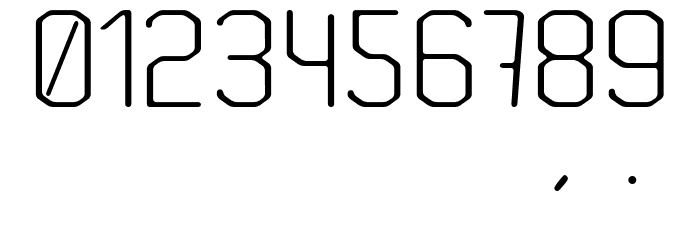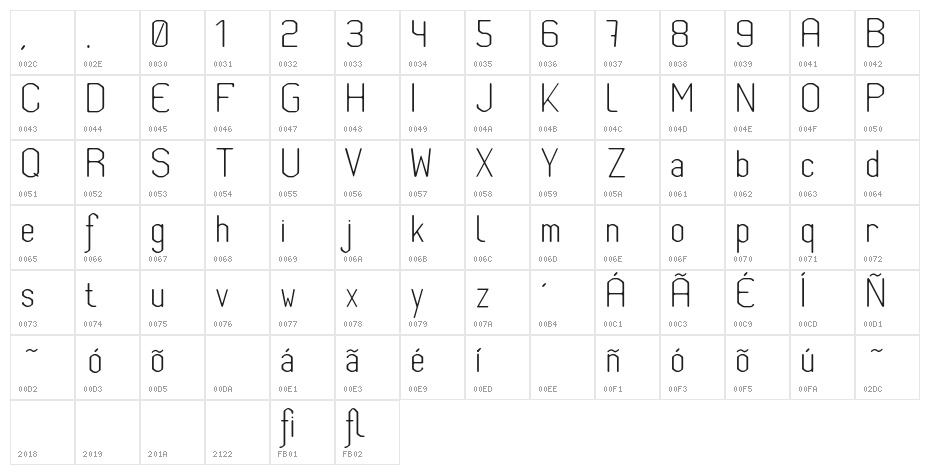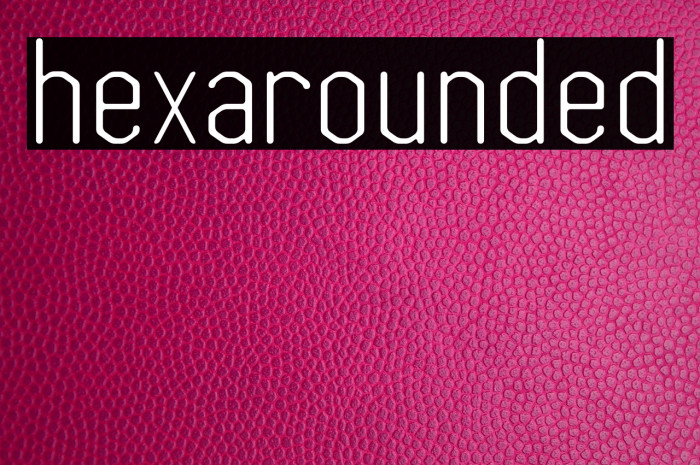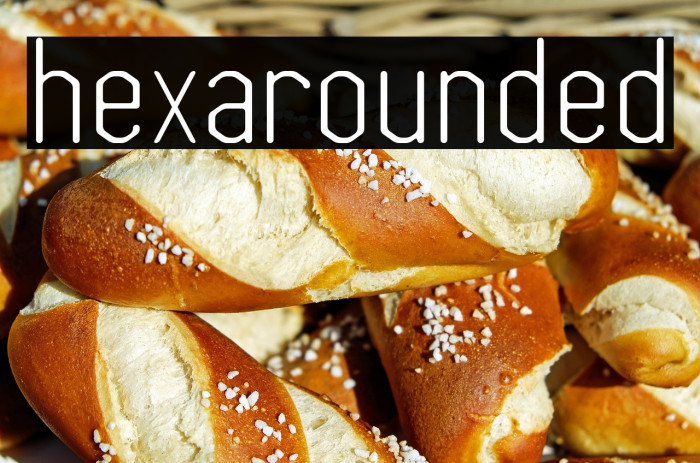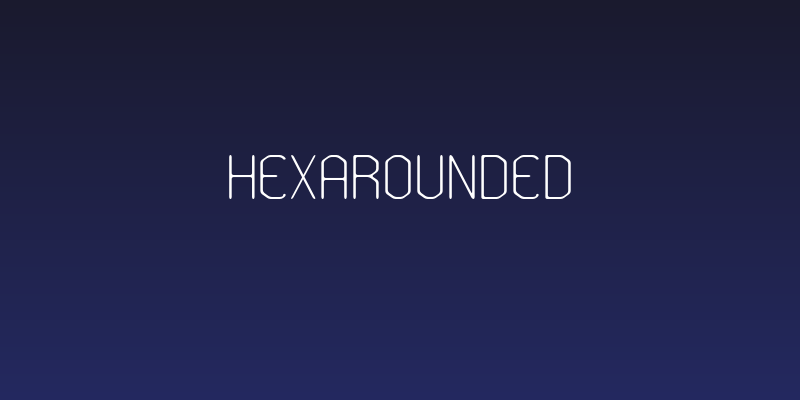
hexarounded Font
hexarounded Description
This font features a geometric, rounded style with a modern and clean aesthetic. Each character is constructed with a hexagonal shape that is softened by rounded corners, giving it a unique and approachable look. The uppercase and lowercase letters maintain a consistent height, while the numerals are designed to align seamlessly with the overall style. The font's thin strokes and open counters enhance readability, making it suitable for various design applications. Its distinct appearance is both futuristic and friendly, ideal for projects that require a contemporary and innovative touch.